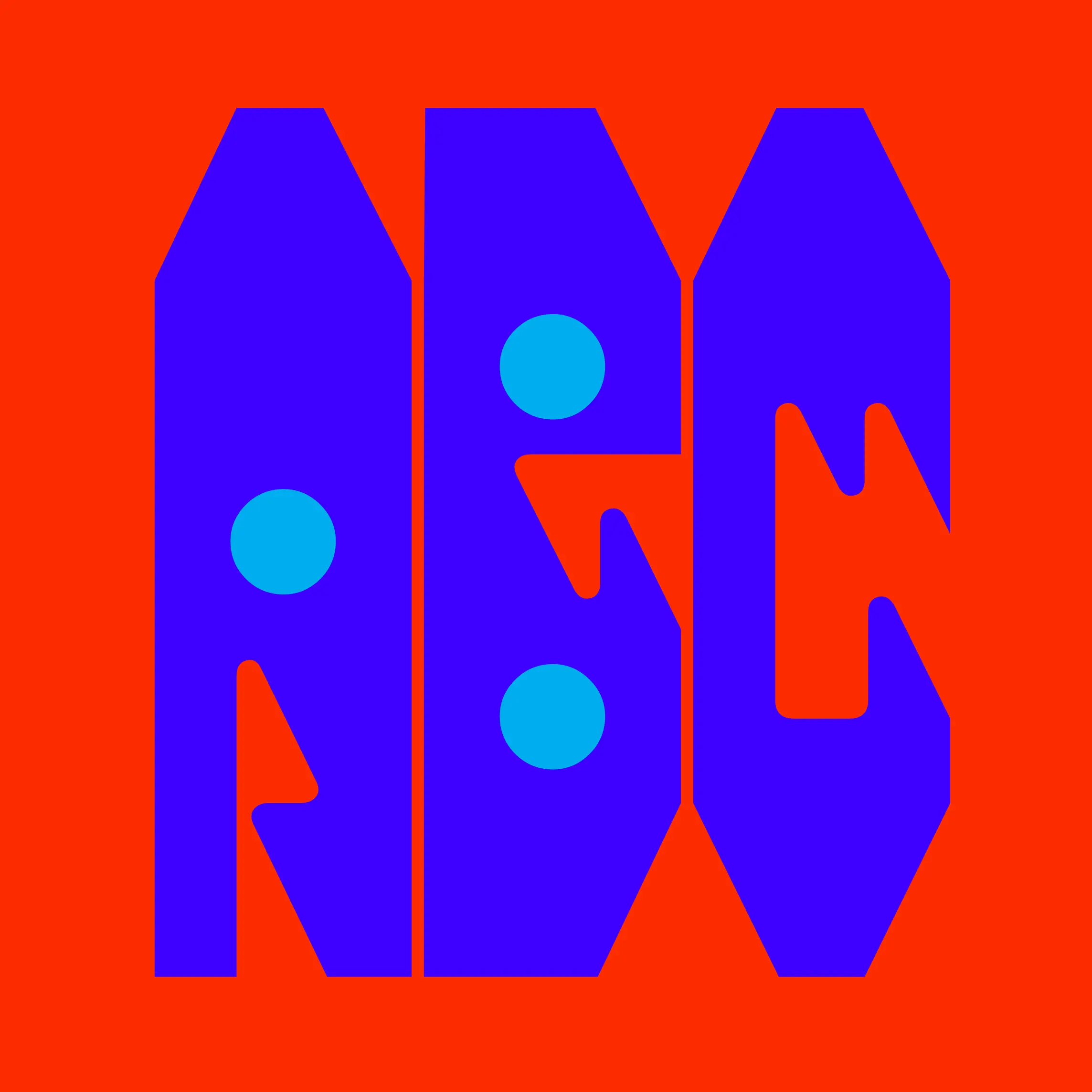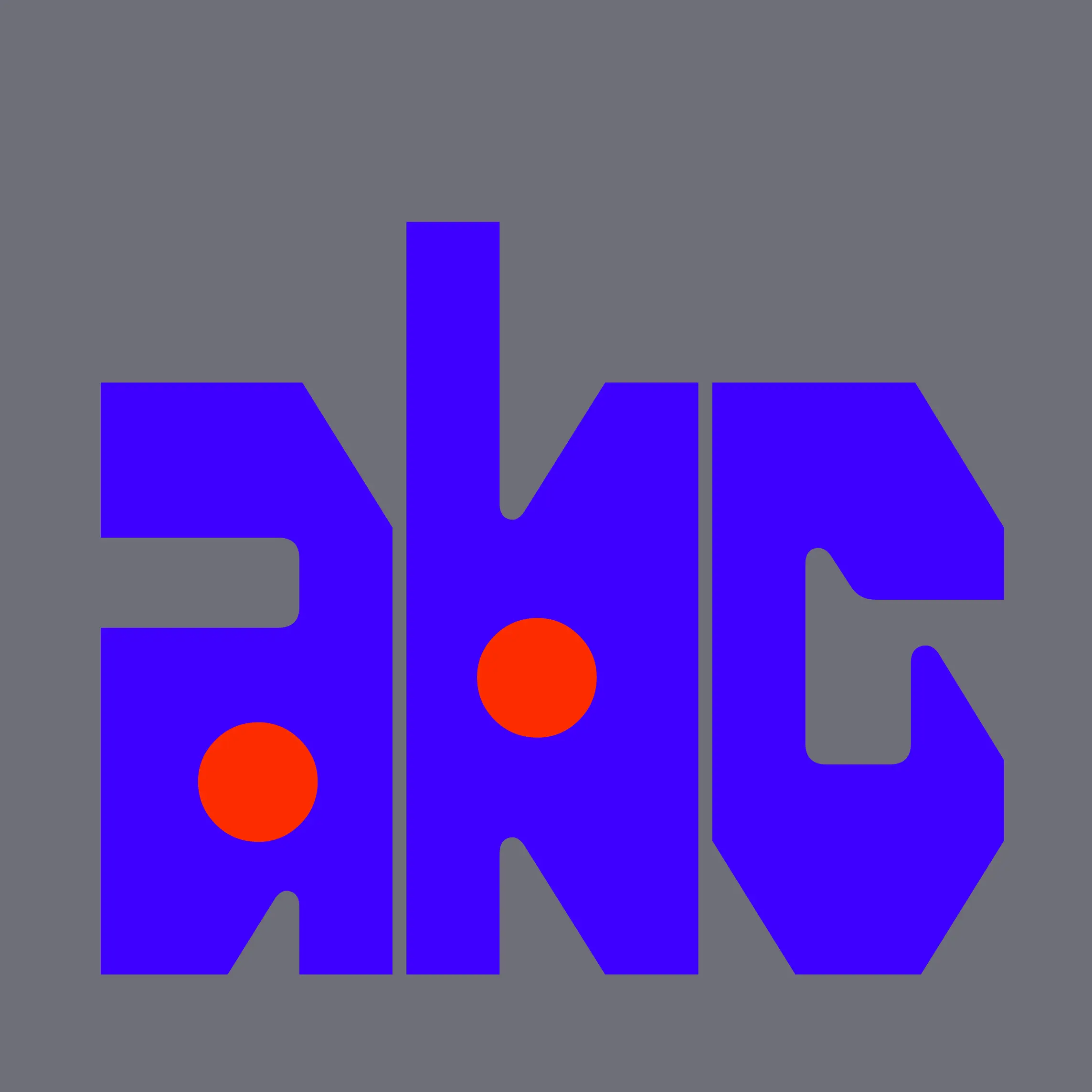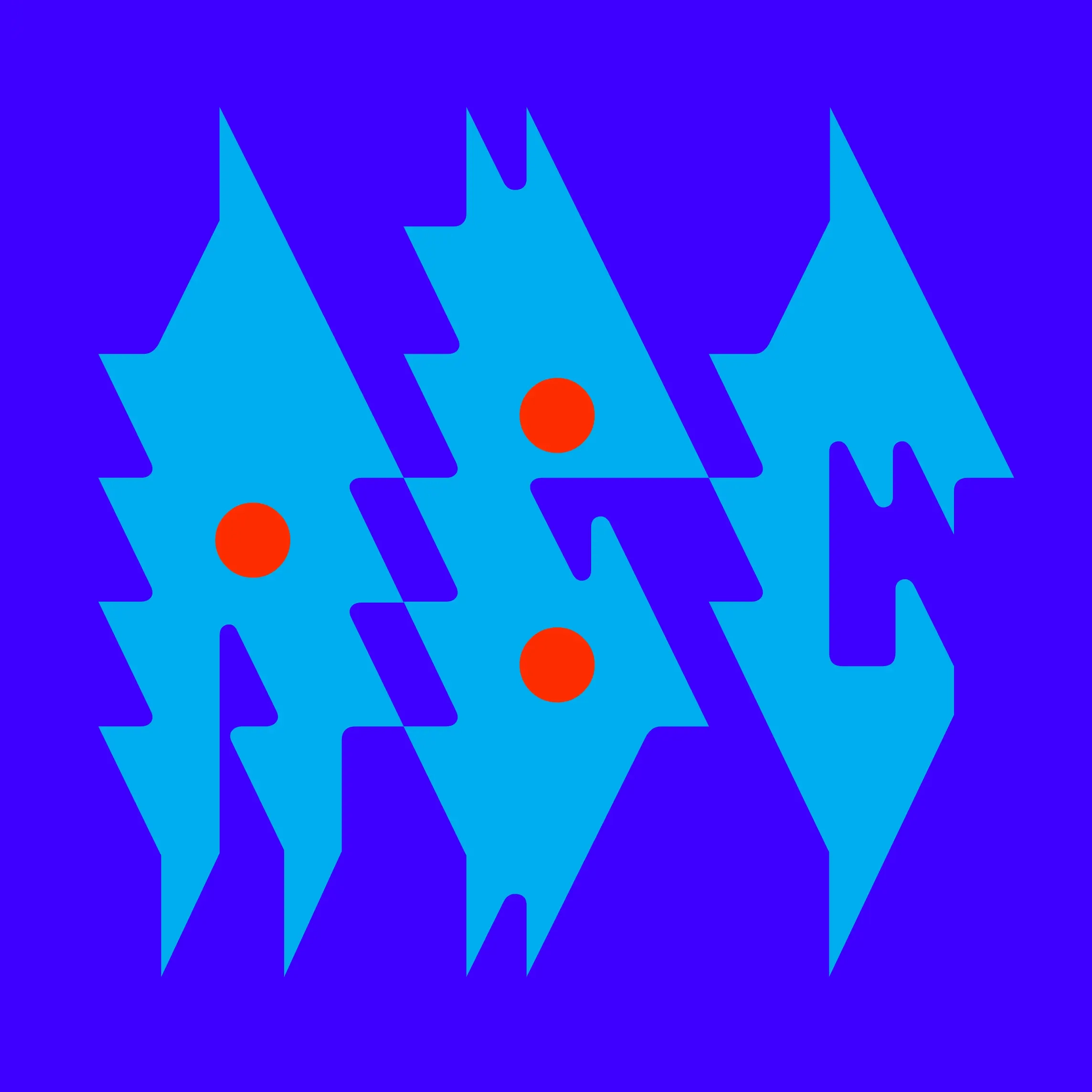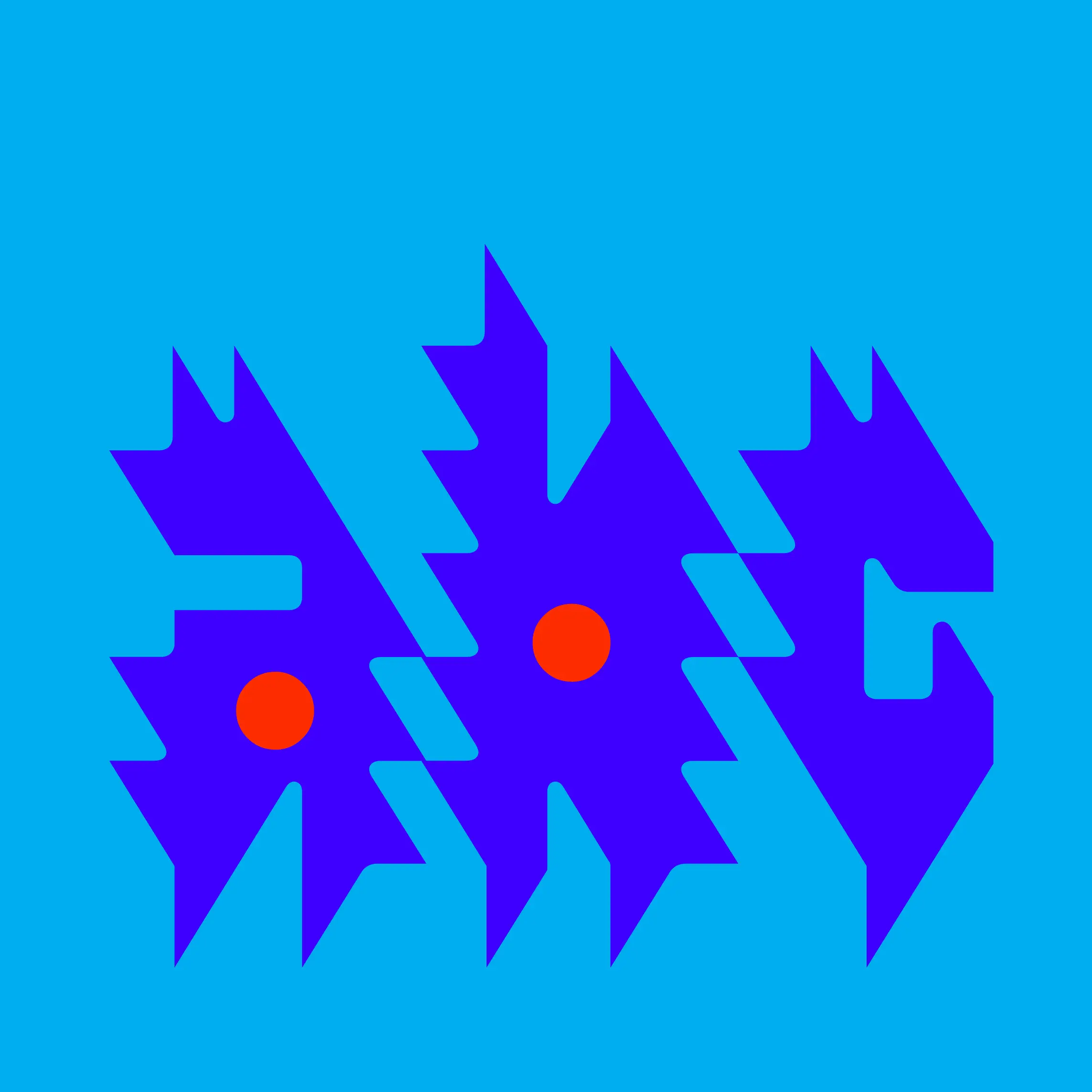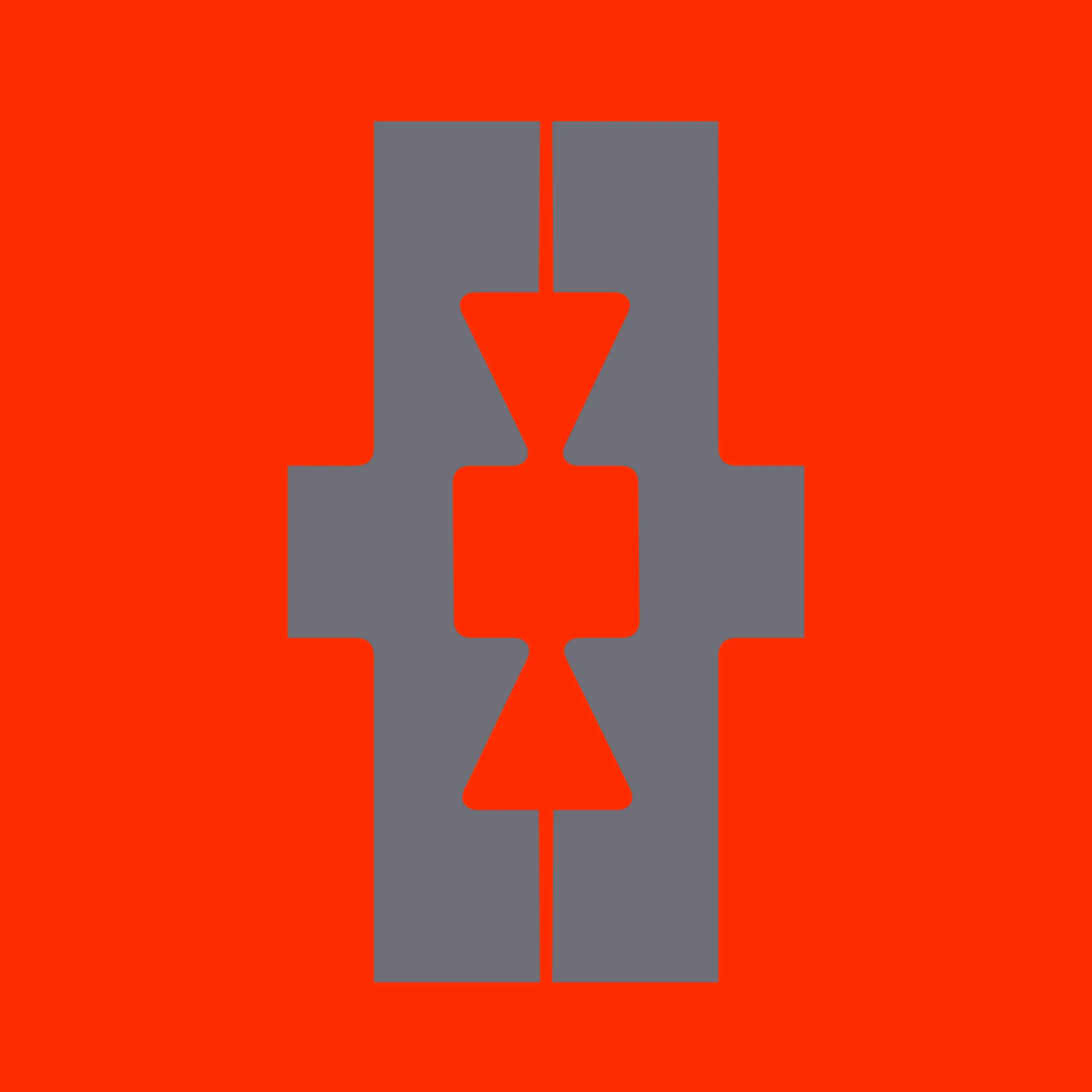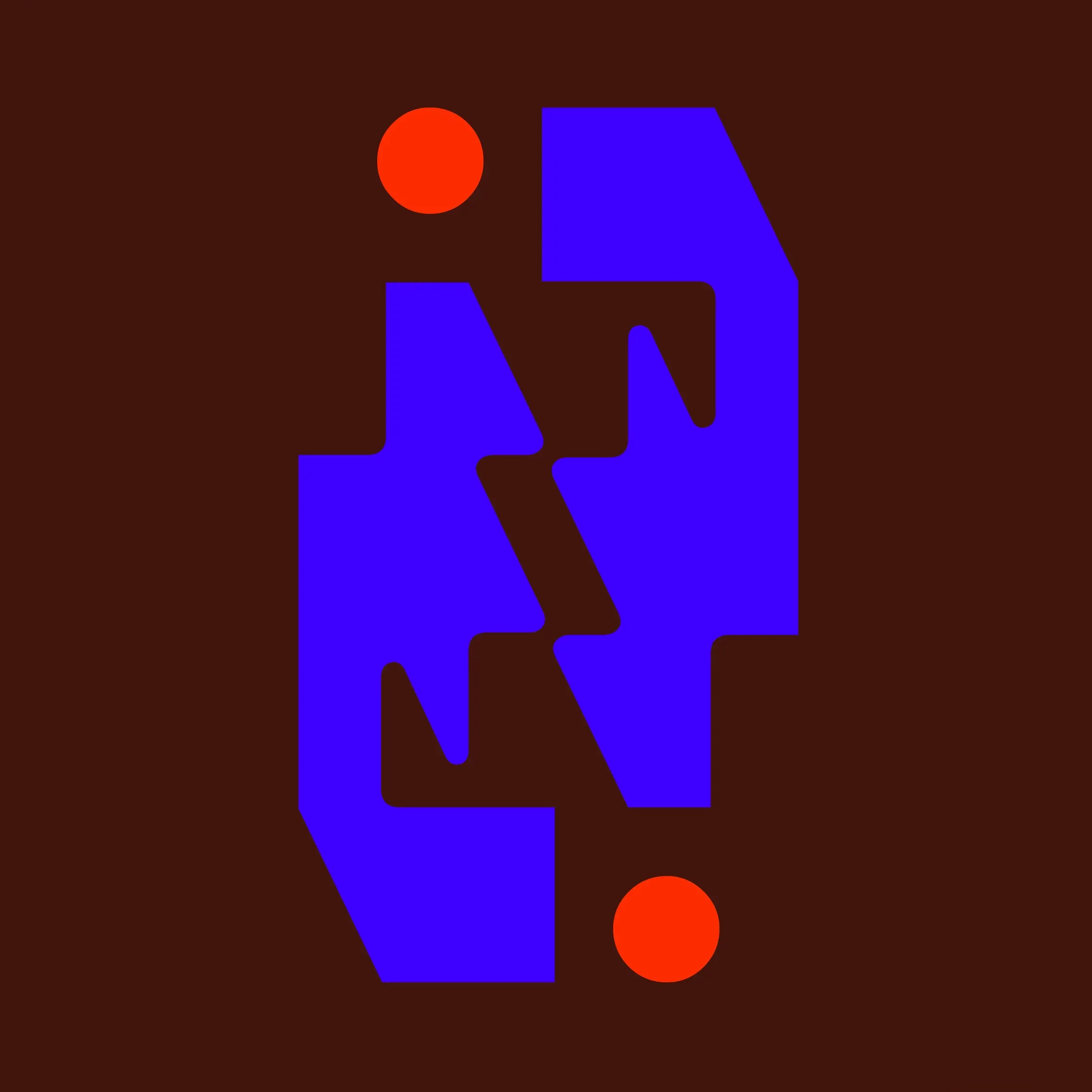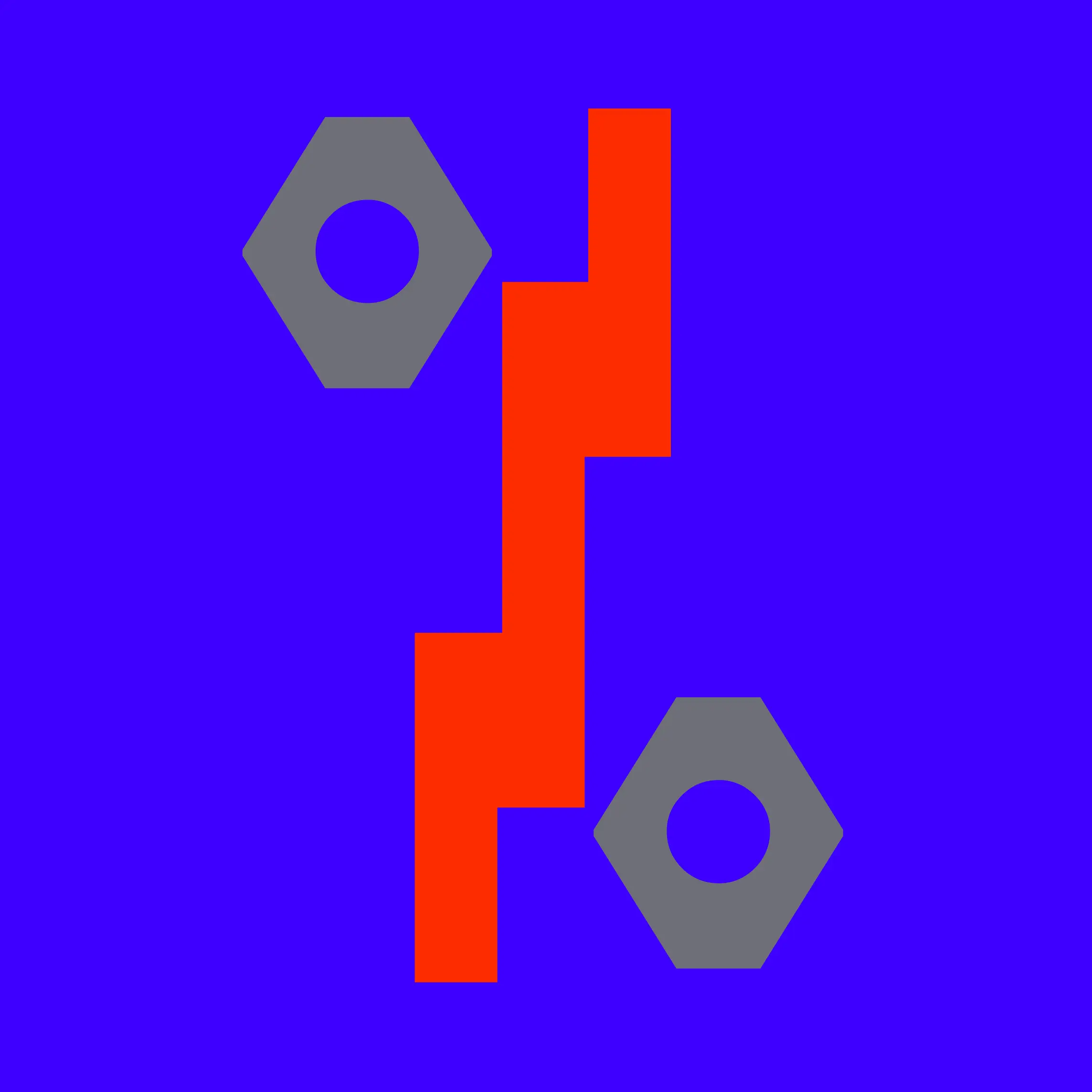
Serrucho Variable Font
Serrucho is a serrated variable display font by In-House, named after the handsaw and built for loud branding, posters, merch, packaging, and headlines that need to cut through.
Serrucho Variable Typeface
Serrucho – Variable Font
Serrucho is a variable display typeface with teeth. Named after the handsaw, it morphs from controlled brutality to unleashed frenzy across eight weights—each one sharpening the edges until letters feel like they’re vibrating off the page.
At its flattest (Serrucho-100), the type is bold, blocky, and authoritative. Angular but steady. As the variable axis cranks toward its extreme (Serrucho-800), those clean edges erupt into spikes, creating a frenetic, almost electrified aesthetic that feels mechanical and feral at once. The result is a typeface that can whisper with weight or scream with serrated intensity.
Serrucho channels the raw energy of post-punk flyers, hardcore show posters, and protest graphics cut by hand. It’s built for words that refuse to be ignored—whether that’s bold branding that commands attention, event graphics that crackle with energy, or packaging that won’t sit quietly on the shelf. Use it when polite and forgettable just won’t cut it: from tiny stickers to merch to flyers to billboards to headlines that won’t quit.
Serrucho was designed by Alexander Wright with Michu Benaim Steiner at In-House International foundry, and developed by Rodrigo Fuenzalida at FragType. Designed by Alexander Wright with Michu Benaim Steiner at In-House International. Type development by Rodrigo Fuenzalida at FragType. In-House International is a studio founded by Lope Gutiérrez Ruiz, Michu Benaim Steiner and Alexander Wright that delivers branding breakthroughs for game-changers.